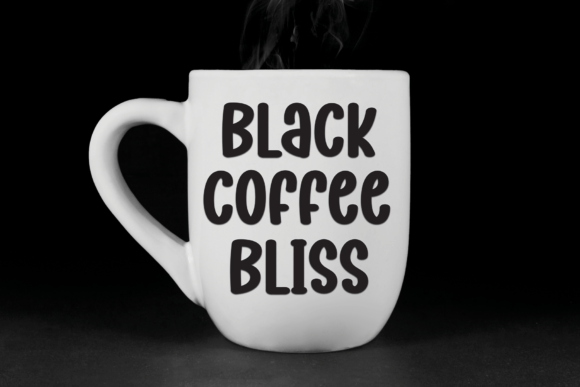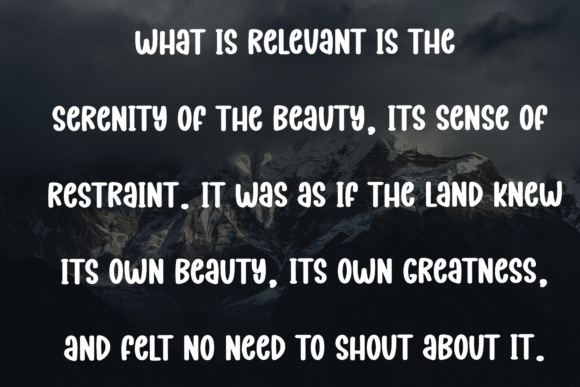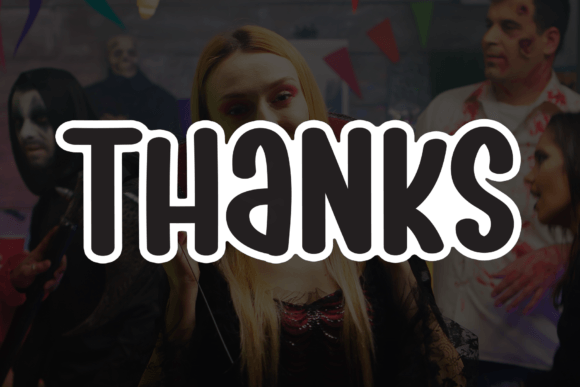
The Magic of Ghost Party Font: A Designer’s Delight
Have you ever been in the middle of a design project, and suddenly, the font you’ve been using just doesn’t cut it? You’re striving for that perfect blend of elegance and playfulness, but it’s just out of reach. I recall a recent project where I was tasked with creating a whimsical logo for a children’s party planning service. The client wanted something fun, yet sophisticated. After scouring through countless font libraries, I stumbled upon the Ghost Party font. It was love at first sight! ✨
- ✨ Unique and beautiful handwritten style that’s perfect for branding, logos, and quotes
- ✅ Every letter has a distinctive touch, making your design truly stand out
- 🌈 Versatile and can be used for a wide range of creative projects, from digital designs to print materials
While Ghost Party is an amazing font, there are a few things to keep in mind: ⚠️ Some letters may appear a bit condensed, which could affect readability in certain contexts. 🤔 It might not be the best choice for body text or lengthy paragraphs, as its uniqueness shines best in short, impactful statements.
- Experiment with OpenType features, such as stylistic alternates, to add more personality to your text
The Story Behind Ghost Party
While the origins of Ghost Party might be shrouded in mystery, it’s clear that its designer was inspired by the magic of handwritten typography. Imagine a world where letters come alive, each with its own unique personality and charm. That’s the world Ghost Party inhabits – a place where creativity knows no bounds, and design dreams become a reality.
Q: Is Ghost Party suitable for body text?
A: While Ghost Party is stunning, it’s best used for short, impactful text. Its uniqueness might make lengthy paragraphs harder to read.
Q: Does Ghost Party support OpenType features?
A: Yes, Ghost Party takes advantage of OpenType features, allowing you to experiment with stylistic alternates and glyphs.